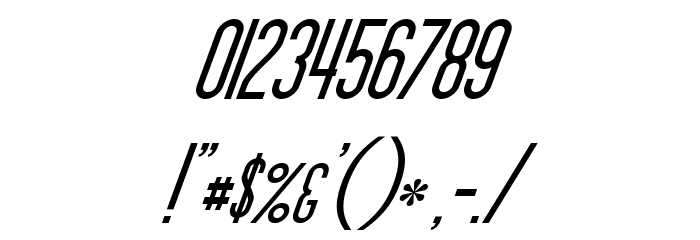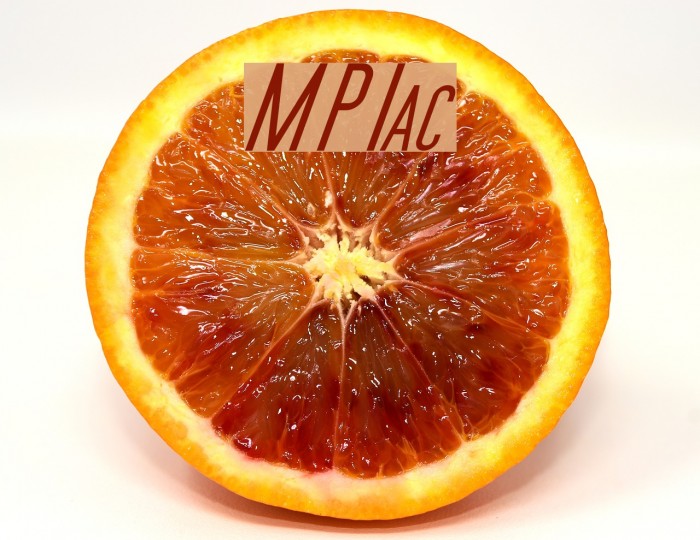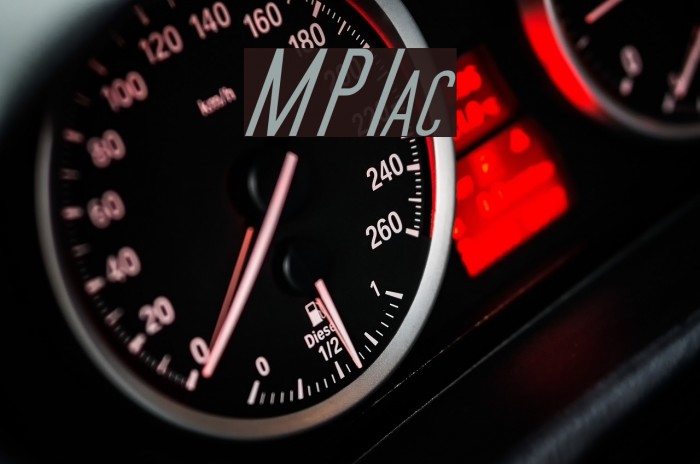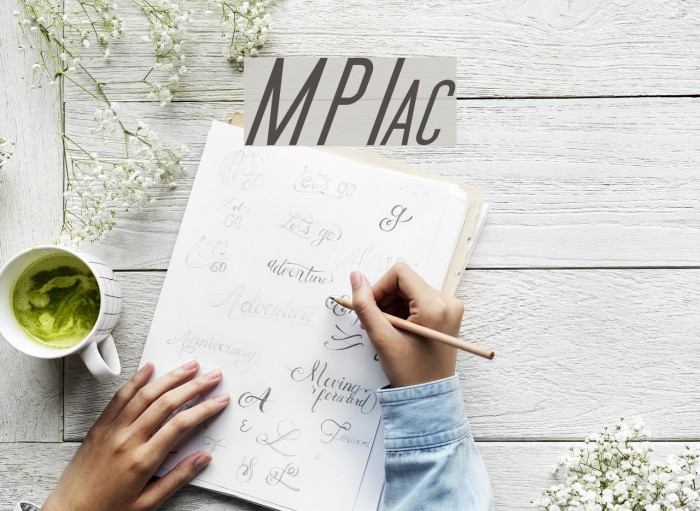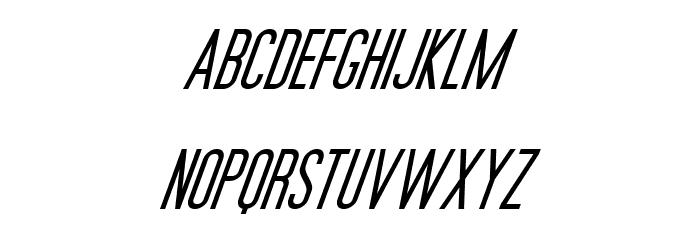
Movie Poster Italic Font
Movie Poster Italic Description
This font features a sleek, italicized style with elongated letterforms that convey a sense of motion and dynamism. The characters are slightly condensed, enhancing the streamlined appearance. The strokes are consistent in width, providing a uniform look across all characters. The font includes both uppercase and lowercase letters, numerals, and a variety of special characters, making it versatile for different design needs. Its modern aesthetic is suitable for projects that require a bold and impactful visual presence.
A sleek, italicized font with elongated, condensed letterforms and consistent stroke width from Decorative fonts.
- Proposed Projects: Ideal for movie posters, advertising campaigns, branding materials, and dynamic headlines.
- Character Spacing: Tight